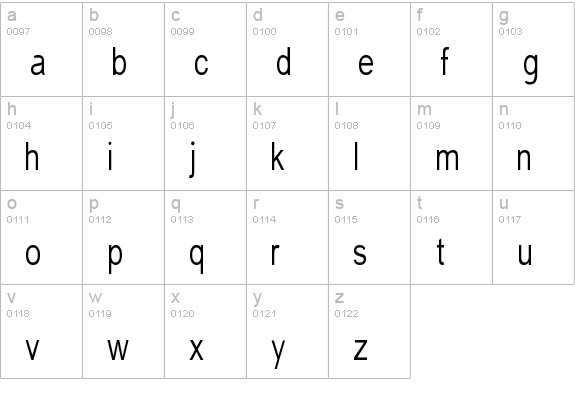
Tempest-narrow Font Details
Tempest-narrow is a distinctive, condensed-width variant in the Tempest typeface family \xE2\x80\x94 well suited to design and typography projects.
Introducing Tempest-narrow font, a stunningly stylish typeface that exudes elegance and sophistication. With its sleek and slender design, Tempest-narrow is perfect for adding a touch of refinement to any project or design. This versatile font features clean and crisp lines, making it ideal for both digital and print applications. Whether you're designing a logo, creating a website, or crafting a professional document, Tempest-narrow will effortlessly elevate your work to new heights. What sets Tempest-narrow apart is not only its impeccable design but also its accessibility. This exceptional font is freely available to download at FontsMarket.com, allowing you to enjoy its beauty without any restriction. Say goodbye to the limitations of expensive fonts and embrace the freedom of Tempest-narrow. Embodying modern sophistication, Tempest-narrow offers a wide range of weights and styles, ensuring that you have the perfect option for every project. From bold and impactful to subtle and refined, this font empowers you to express your creativity without boundaries. With its legible and visually pleasing characters, Tempest-narrow guarantees clarity and readability in any context. Its balanced proportions and meticulous attention to detail make it a standout choice for headlines, titles, and body text alike. Unlock the potential of your designs with Tempest-narrow font, a timeless and versatile typeface that effortlessly combines elegance and modernity. Download this remarkable font for free at FontsMarket.com and experience the freedom to create without limitations.